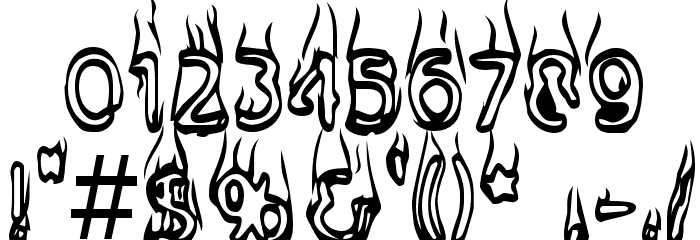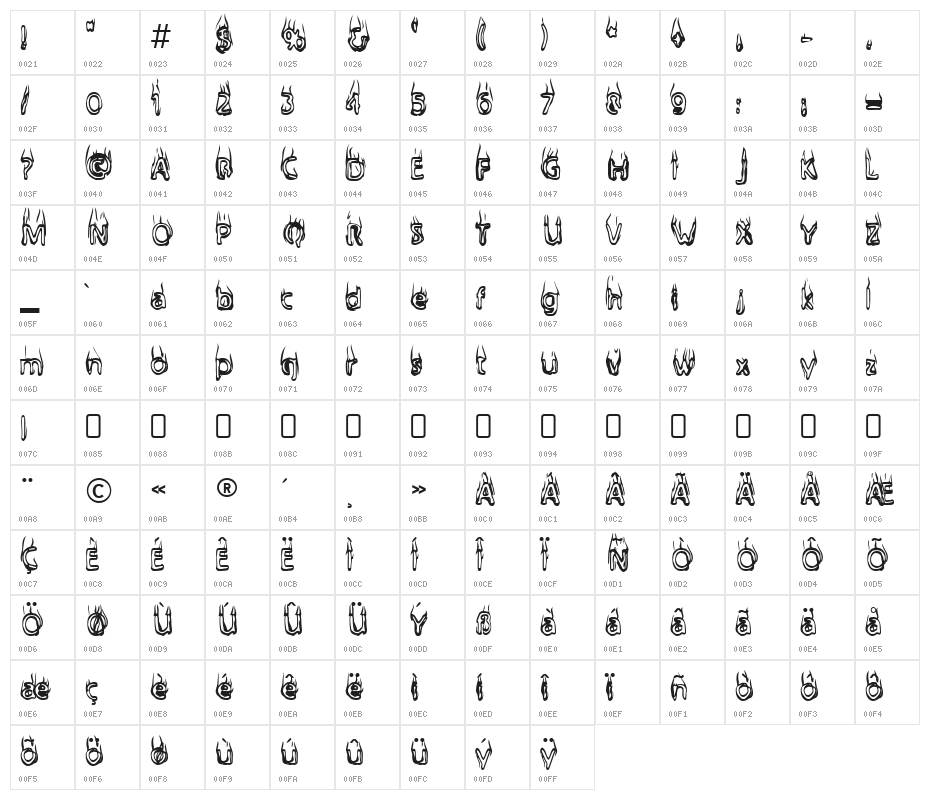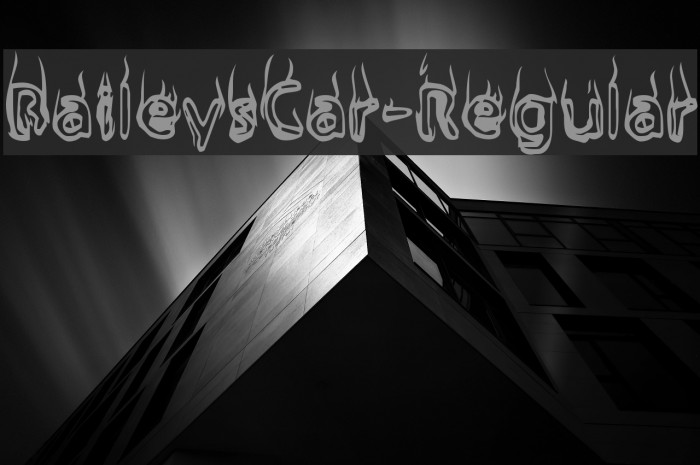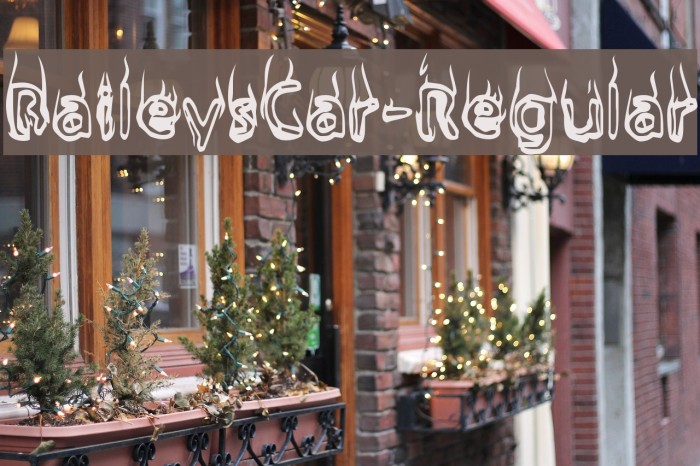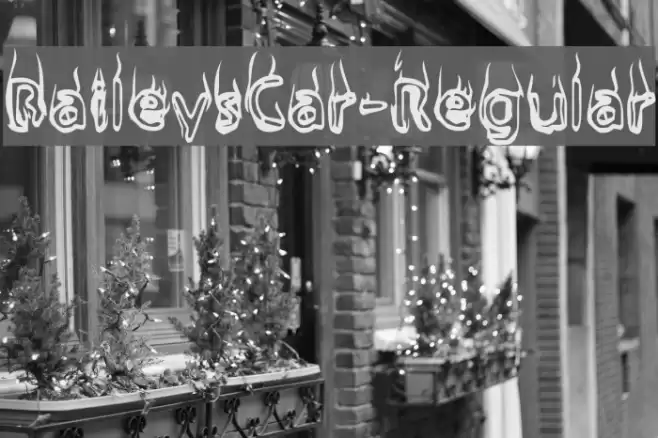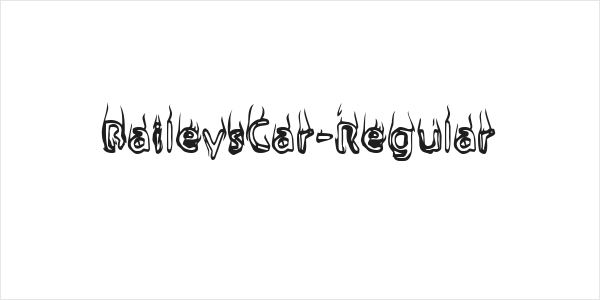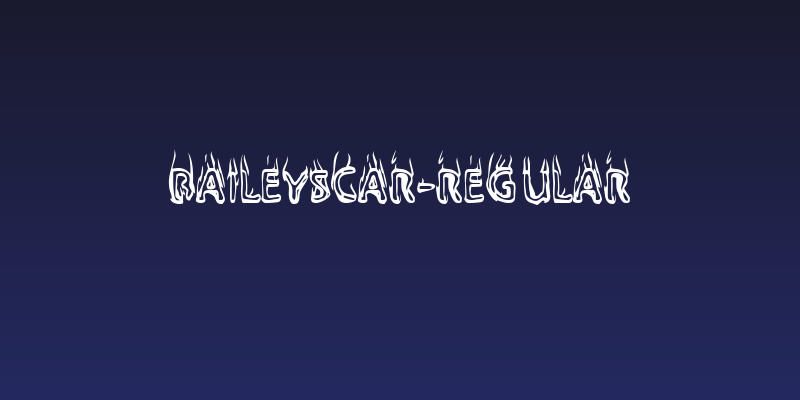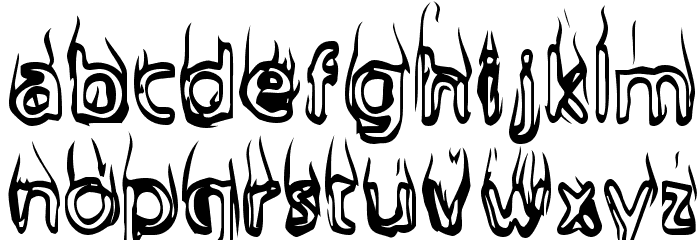
BaileysCar-Regular Font
BaileysCar-Regular Description
This font features a bold, fiery design with each character enveloped in flame-like extensions, creating a dynamic and energetic appearance. The uppercase and lowercase letters maintain a consistent style, with the flames adding a sense of movement and intensity. The numbers and special characters follow the same theme, ensuring uniformity across all elements. The overall design is eye-catching and ideal for projects that require a dramatic and impactful visual statement.
Proposed ProjectsIdeal for event posters, music album covers, video game titles, or any project needing a bold, fiery aesthetic.